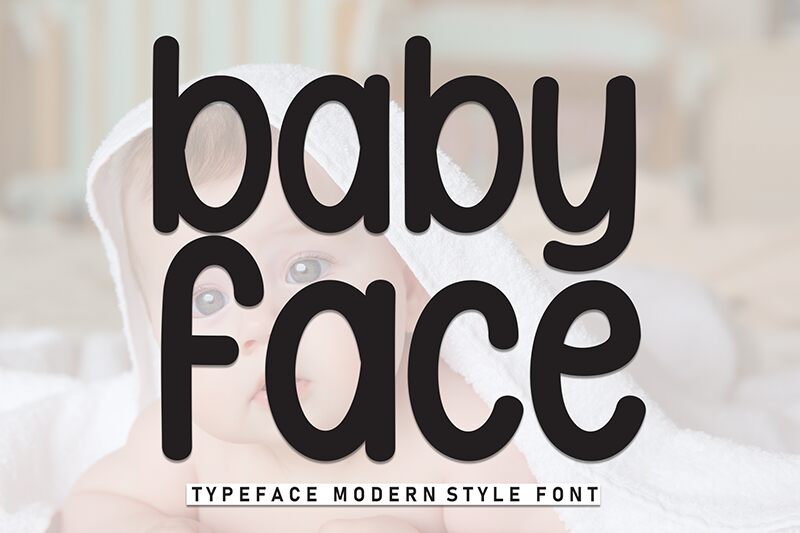
Baby Face
Baby Face font by Andi Moz is a casual handwritten font that exudes warmth and friendliness. Its rounded forms and approachable structure create an informal yet modern appearance that resonates with its versatility. Free for digital download and use, the font can naturally complement any design material where an uncomplicated human feel is required.
Utilize Baby Face for branding purposes, business cards, packaging designs for coffee shops and flower boutiques, brochures and posts for social media pages like Instagram or Facebook, typography artwork such as greeting cards or invitations. Experiment with it in larger sizes on store signage or restaurant menu headers.